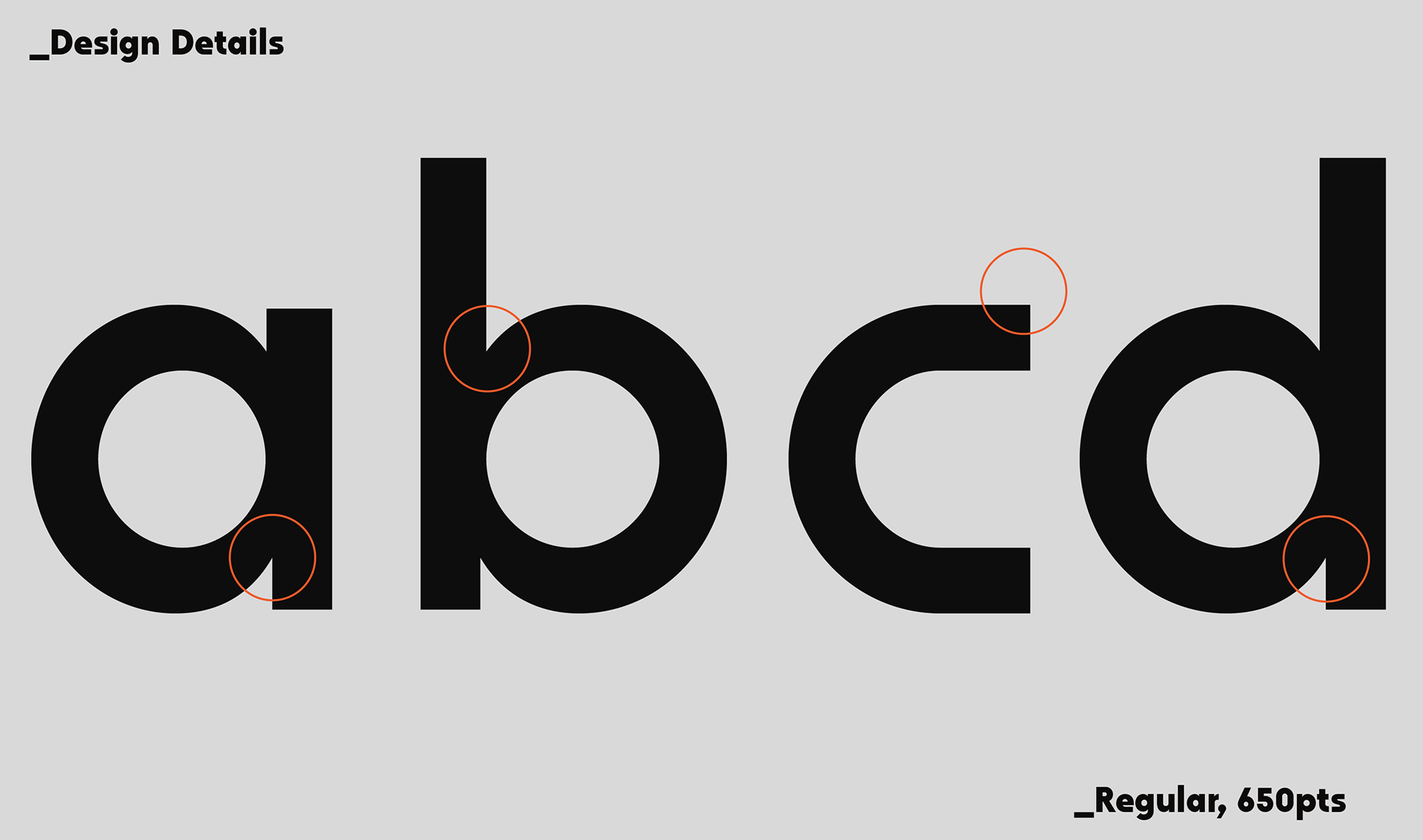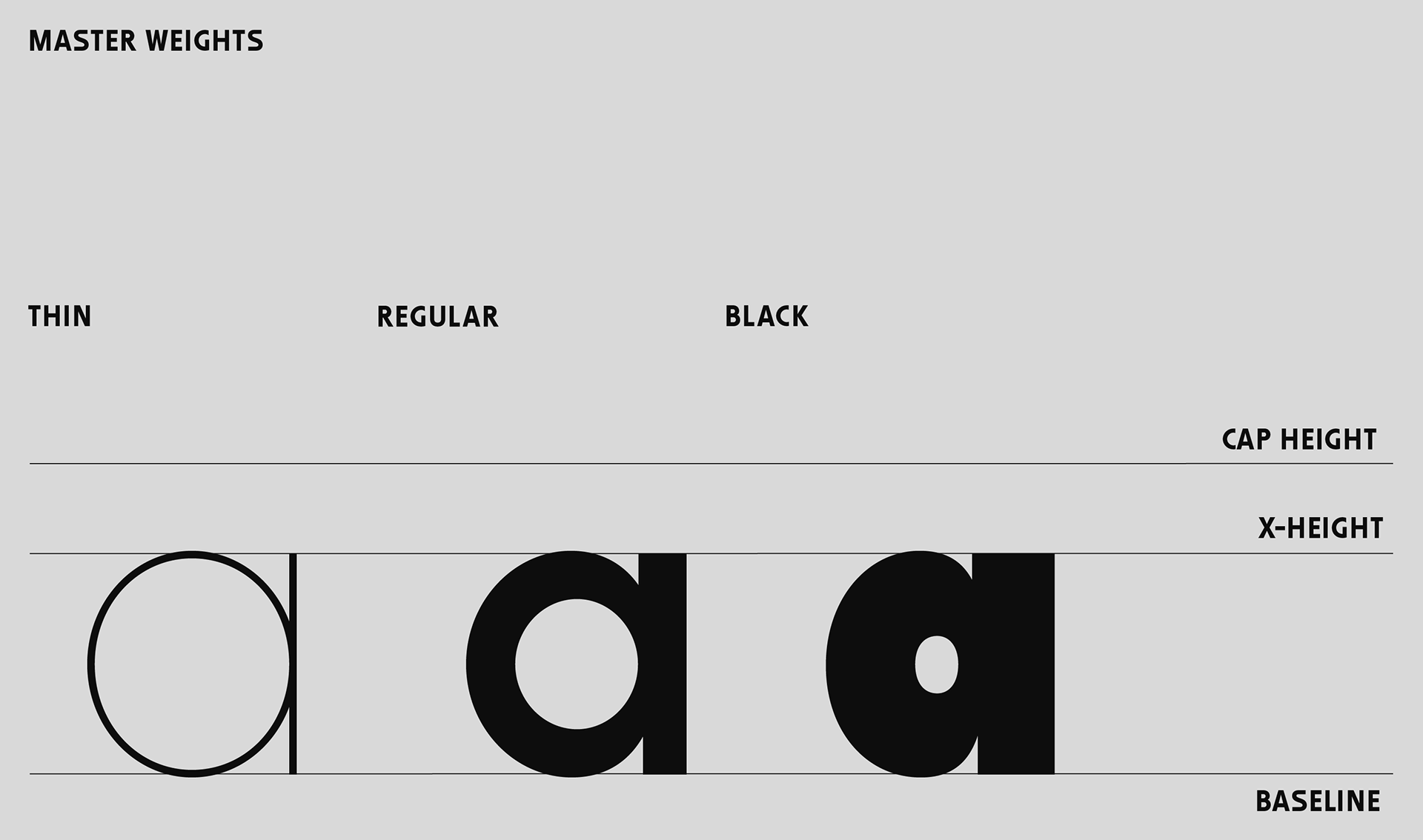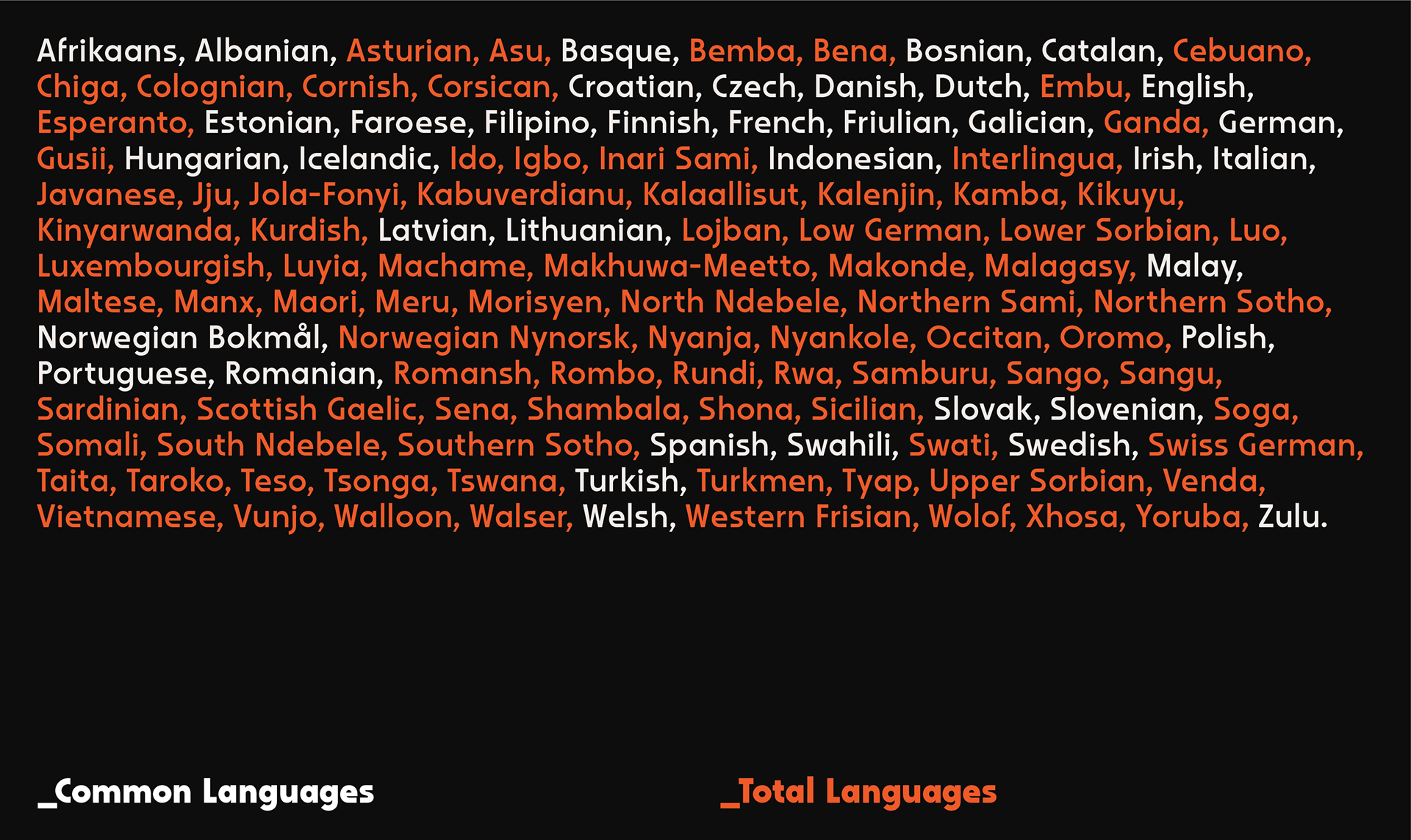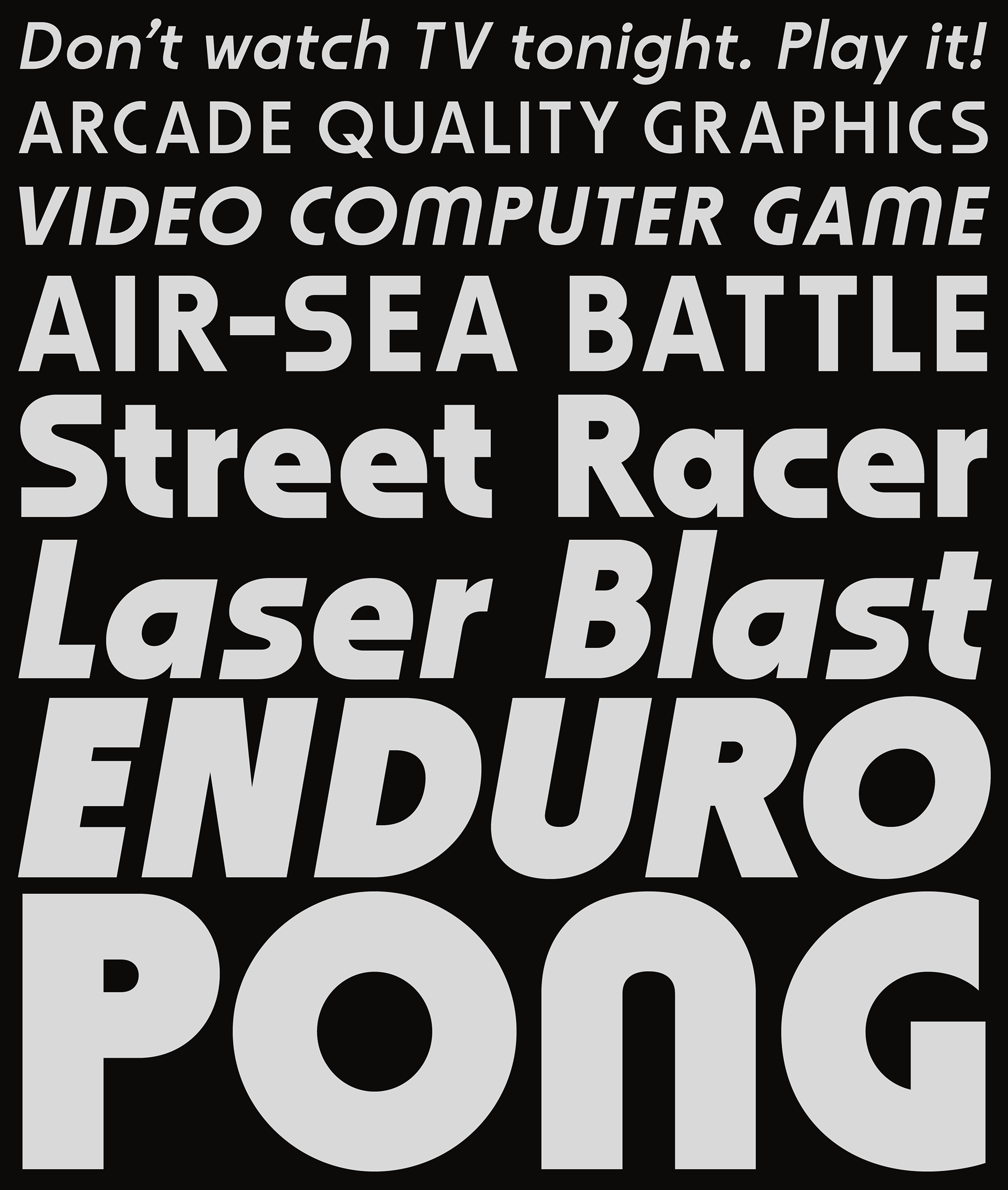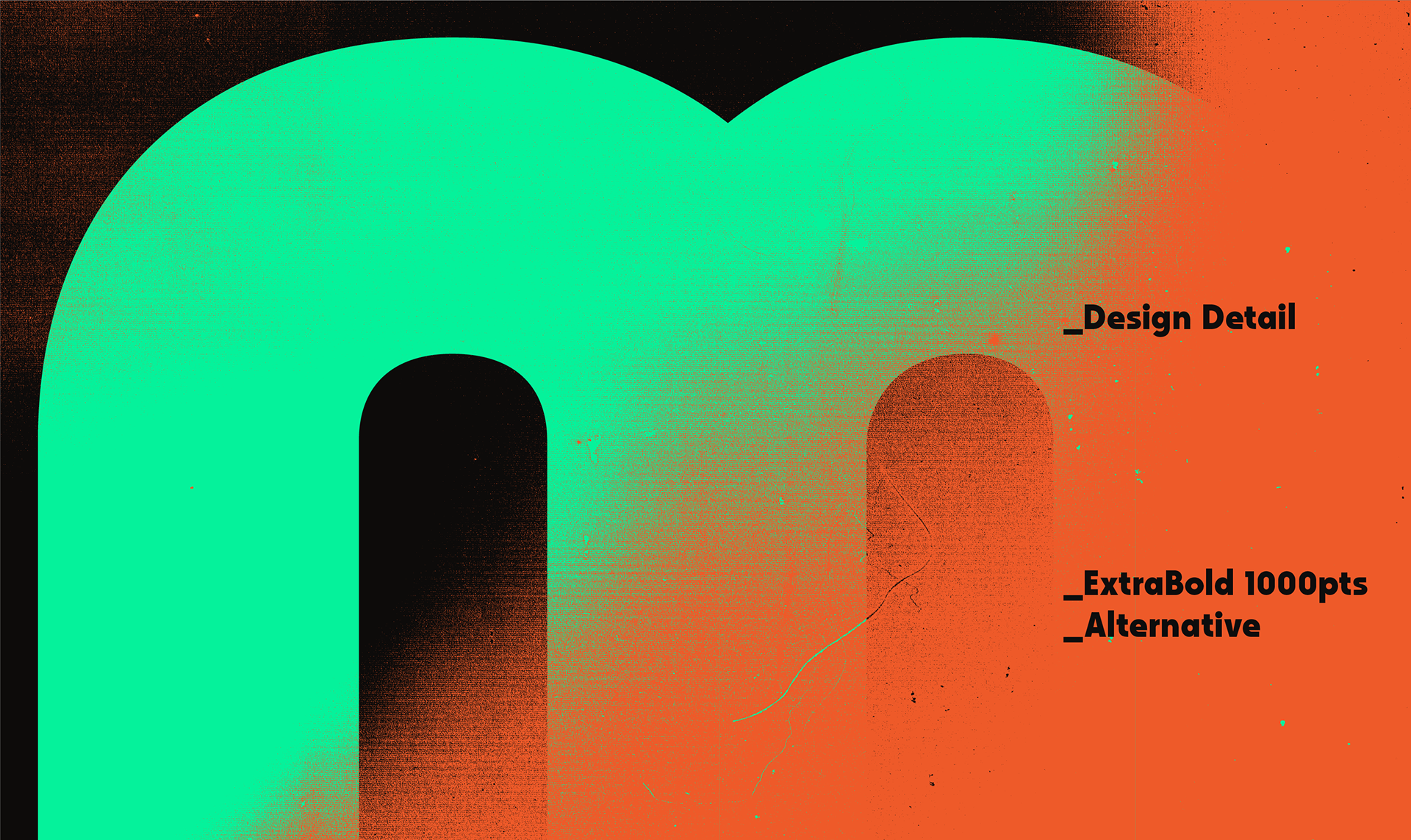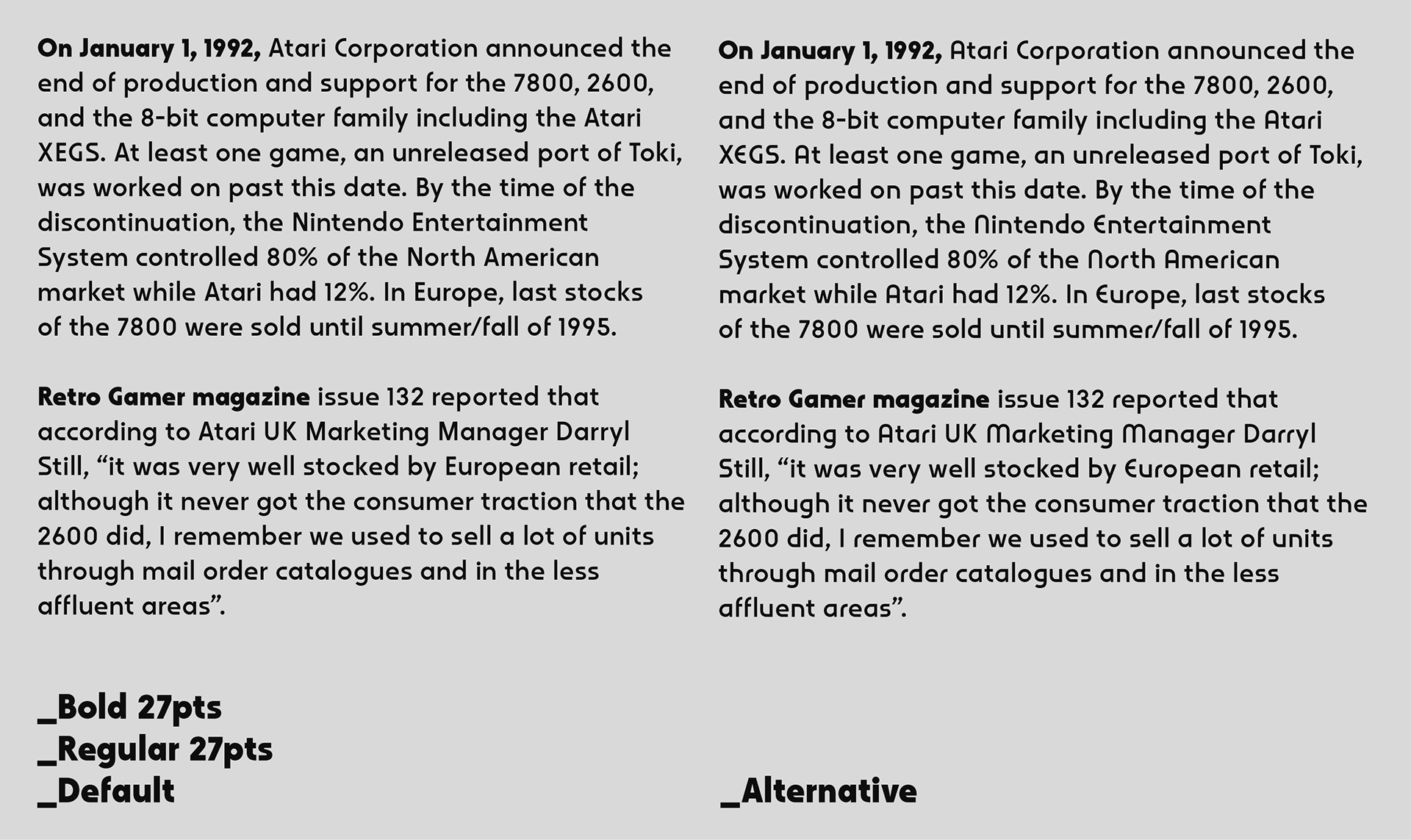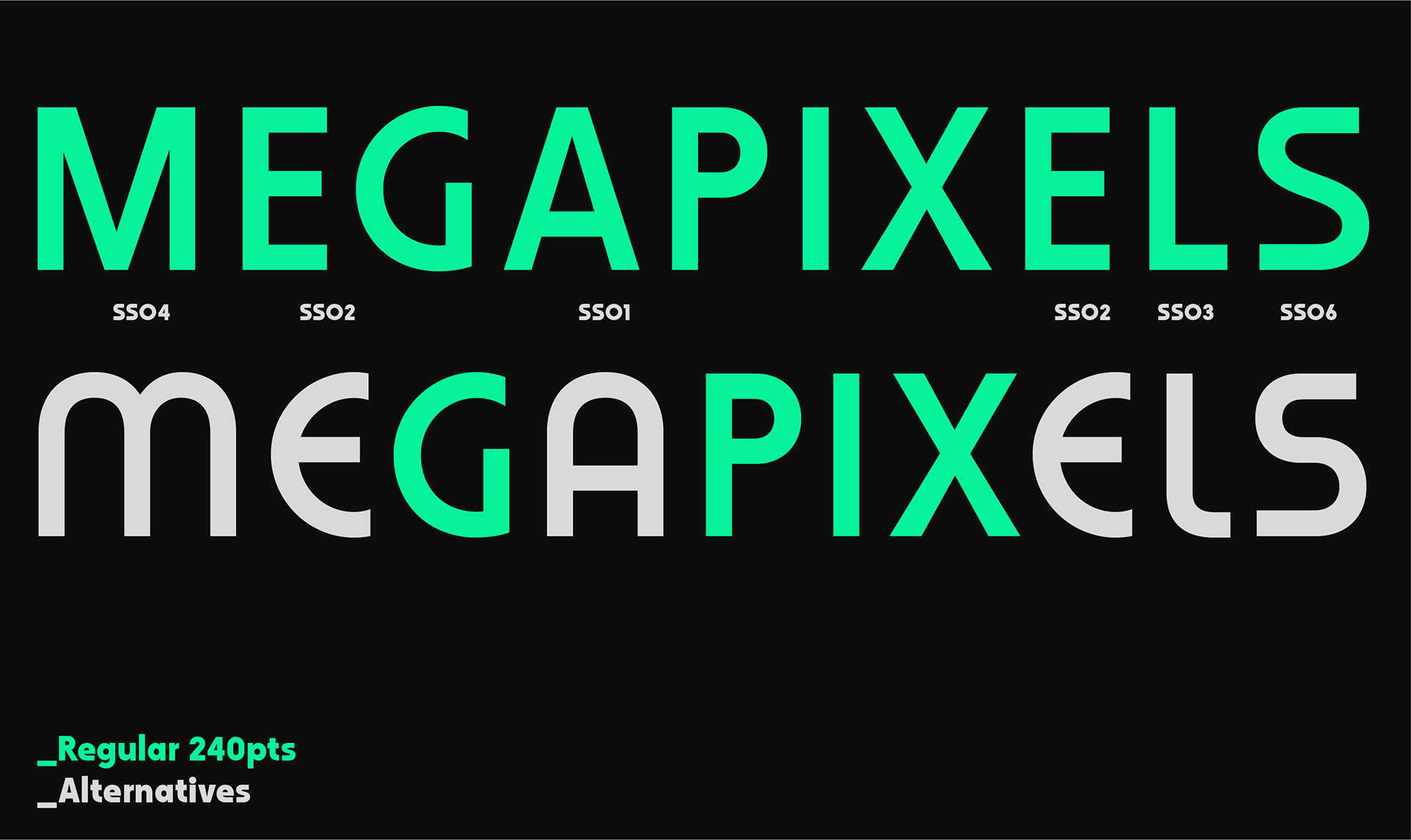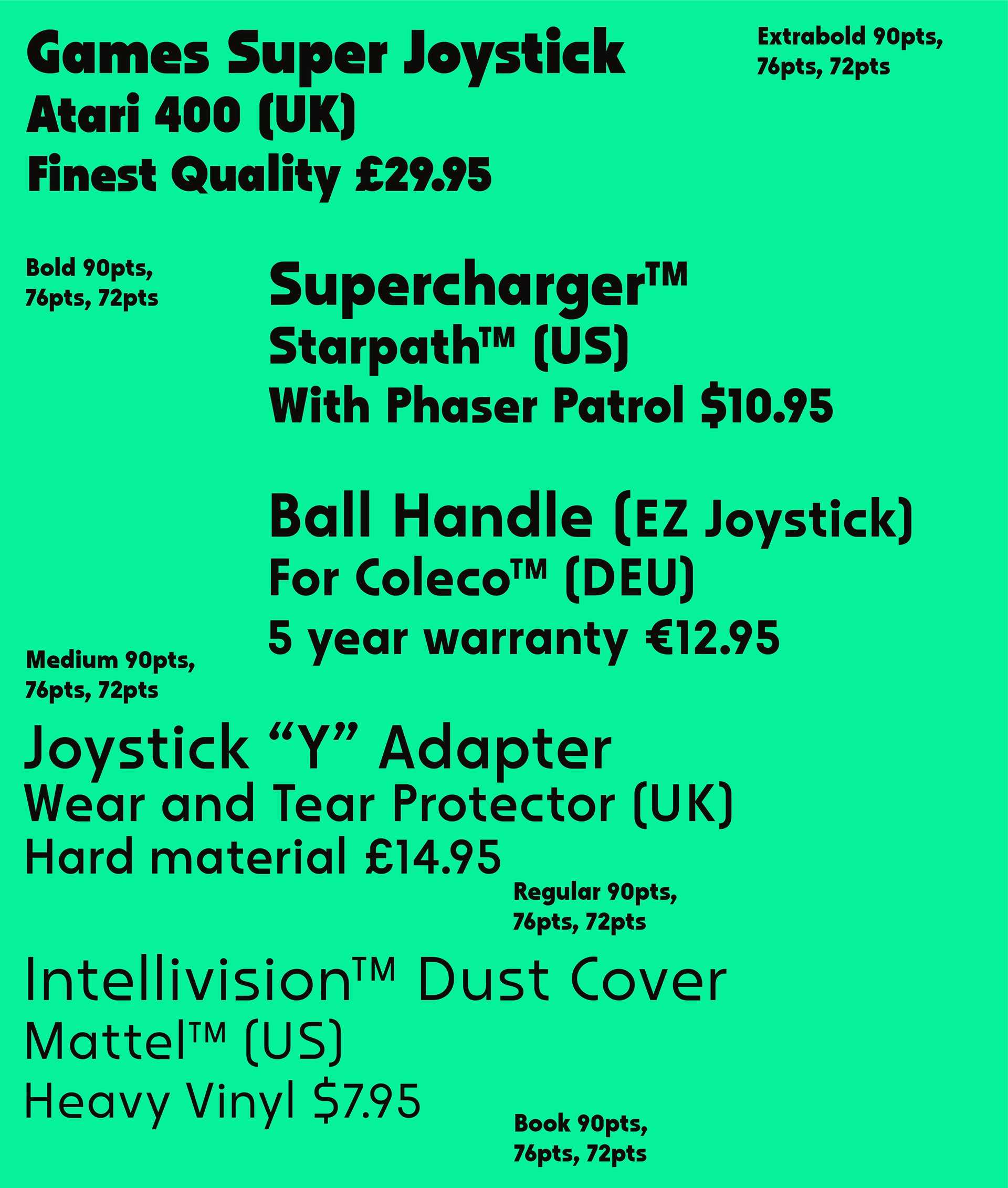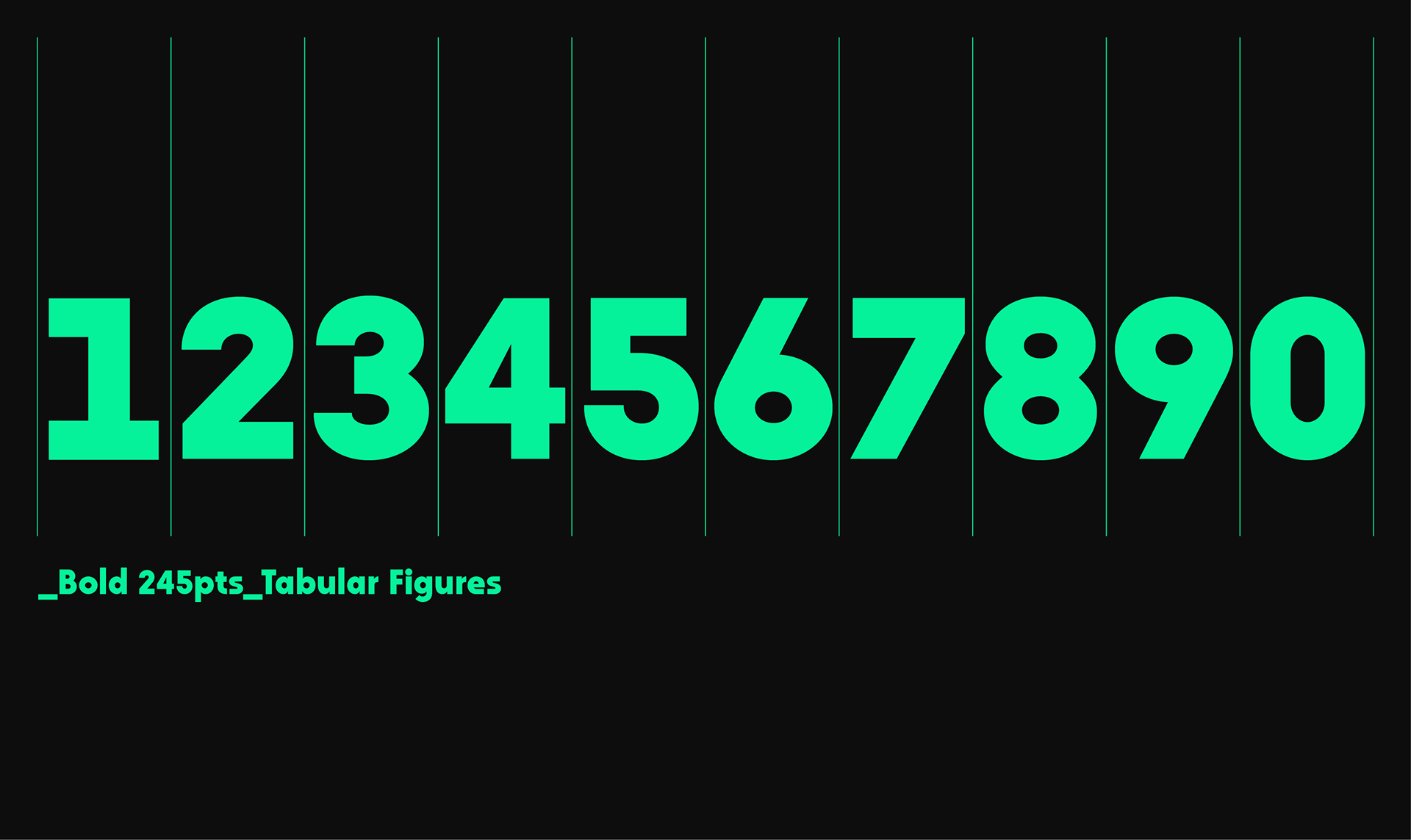
Werkhaus V.2.0 - Display Typeface
Werkhaus is a modern display typeface inspired by Bauhaus 93 and the bold aesthetics of Atari 2600's cartridge packaging. It combines geometric simplicity with dynamic retro influences, featuring an almost monoline structure for a clean, contemporary look. The typeface also includes twenty interchangeable stylistic alternatives, introducing a softer, rounded aesthetic for added versatility. Technically, Werkhaus is a robust type family with over 500 characters, spanning seven weights with matching obliques. It offers eight numeral variations, including lining, tabular, case, numerators, denominators, inferior, and superior figures. With extensive language support covering South, East, and Western Europe, Werkhaus is designed for a wide range of display applications, from branding to editorial design.